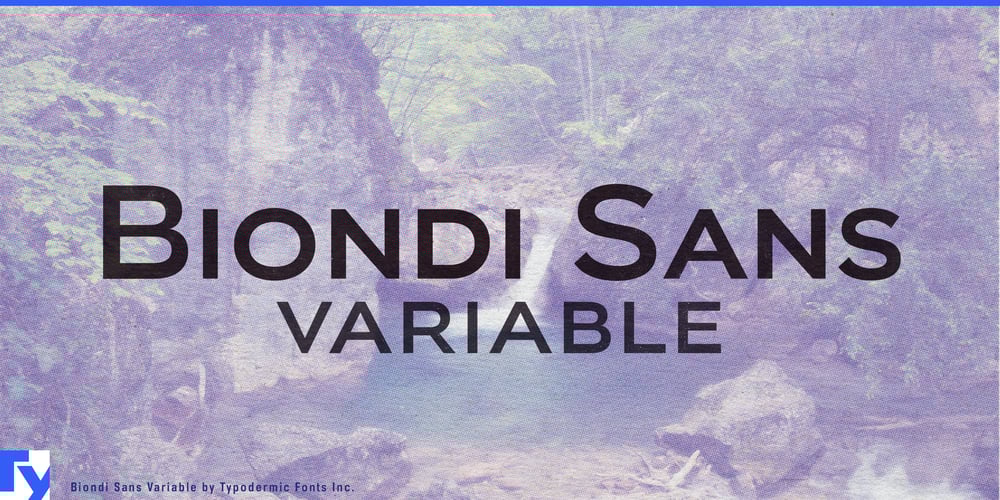
Biondi Sans Variable Font Family was designed by Ray Larabie and published by Typodermic. Biondi Sans Variable contains 1 styles and family package options. Meet Biondi Sans Variable, a sophisticated evolution of classic American typography reimagined for the age of dynamic design. Drawing inspiration from Morris Fuller Benton’s legendary Copperplate, this typeface marries the refinement of early 20th-century engraved lettering with the fluid adaptability of variable font technology.At the heart of Biondi Sans Variable lies unprecedented creative control. Its weight axis glides seamlessly from whisper-thin to commanding bold, while the slant axis allows for nuanced expression—from dignified upright to gracefully inclined forms. This seamless adjustability empowers designers to fine-tune their typography with surgical precision, creating exactly the right voice for any context. Whether you’re crafting responsive websites, elegant motion graphics, or adaptive user interfaces, Biondi Sans Variable responds with fluid grace to your creative direction.The typeface’s clean, geometric letterforms honor the timeless charm of architectural lettering while embracing contemporary design demands. Each character has been meticulously crafted to maintain its elegance across the entire spectrum of weights and slants. Small caps complete the package, offering additional refinement for sophisticated typographic hierarchies. From delicate footnotes to commanding headlines, Biondi Sans Variable delivers unwavering clarity and poise.True to its heritage of global communication, Biondi Sans Variable speaks eloquently across cultures. Its extensive character set spans a broad linguistic landscape, ensuring your message maintains its sophistication whether displayed in Vietnamese, Greek, or any of the many supported Cyrillic-based languages. This masterful typeface feels equally at home in a high-end fashion magazine, a corporate brand system, or a cutting-edge digital experience.Choose Biondi Sans Variable when you need typography that adapts fluidly while maintaining an unmistakable connection to classic design principles. After all, true sophistication isn’t static—it’s responsive to the moment while remaining eternally elegant.